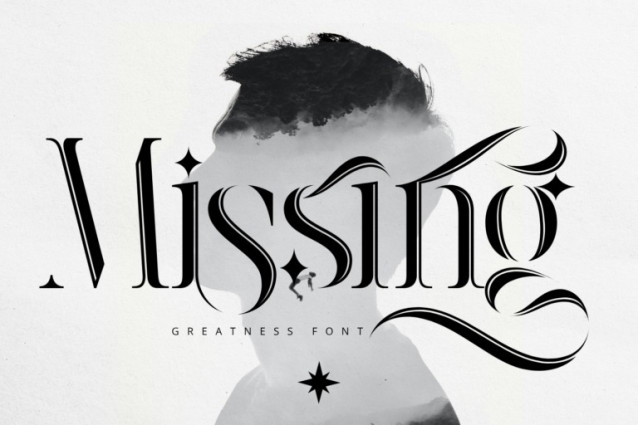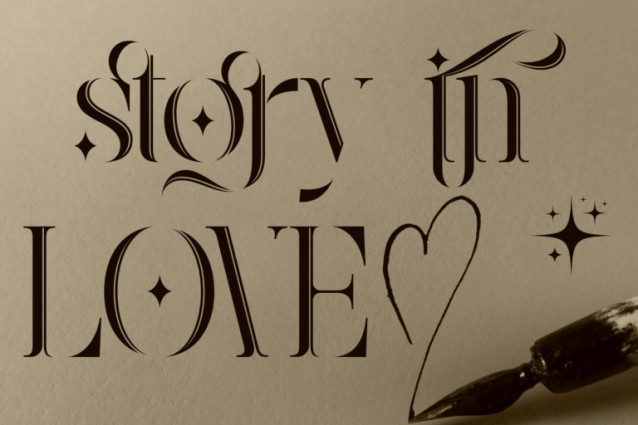
Greatness Ligatures Font
Greatness Ligatures Font is a luxurious high-contrast serif display font that blends elegance and drama with a touch of ornamental flair. Featuring sharp vertical stems, gracefully tapered curves, and flourished swashes, this typeface was designed to evoke a sense of grandeur and nobility. The font is punctuated with diamond-shaped sparkles and calligraphic strokes, making it perfect for premium branding, fashion editorials, packaging, or any project that demands a bold, regal presence.
Uppercase & Lowercase Letters
100+ Exquisite Ligatures and Alternates (swashes, stylistic variations)
Multilingual Accents & Diacritics
Fully optimized for large headings, logos, and digital banners
Ideal for luxury, fashion, gothic romance, or editorial design
About 100 ligatures combined with Stylistic Alternates Font: